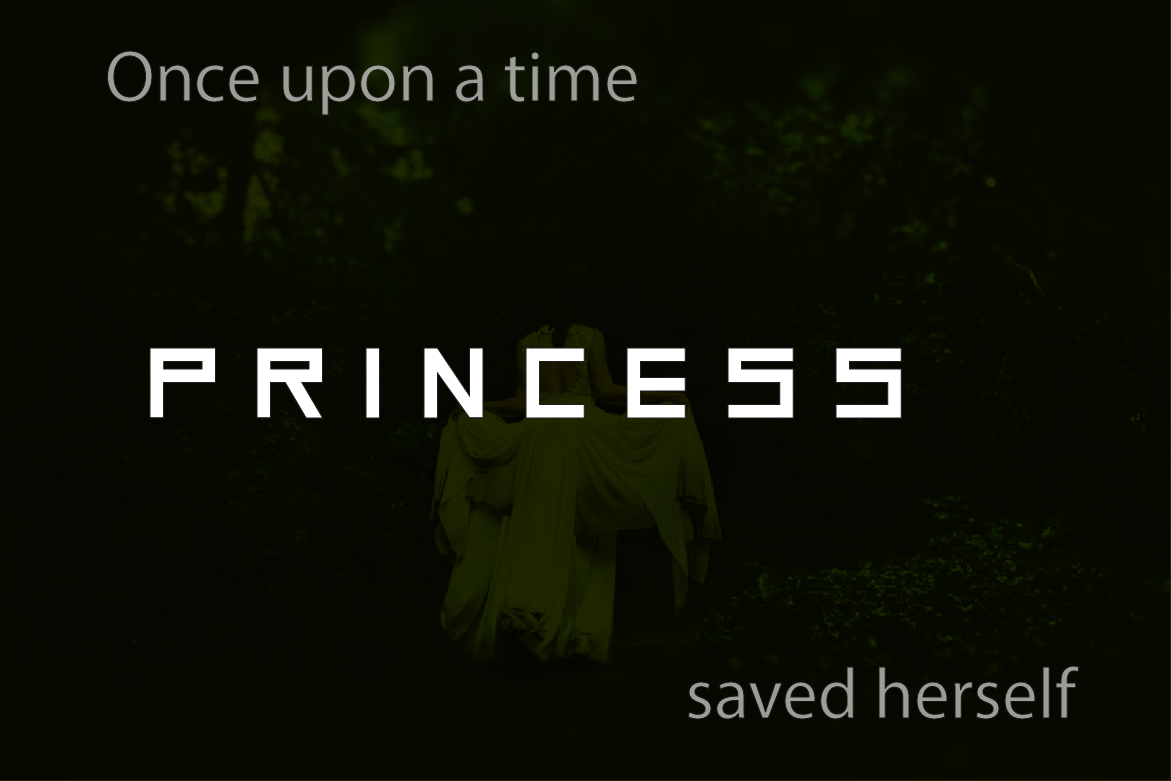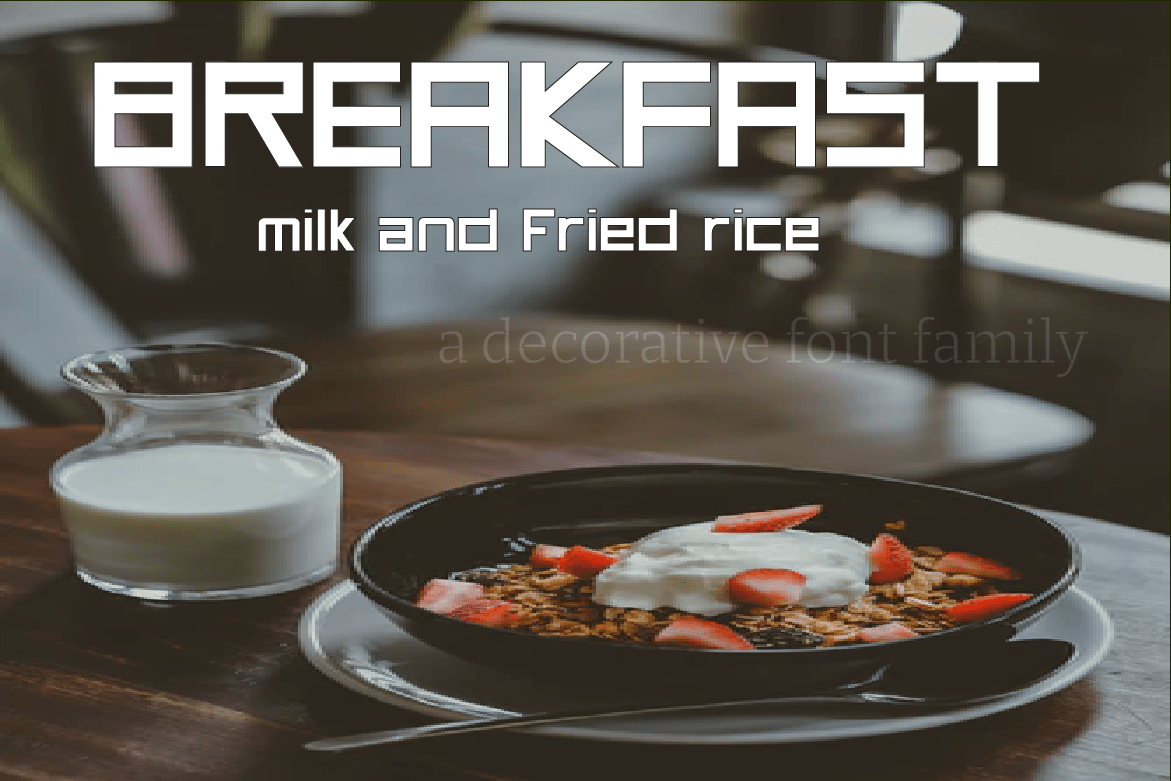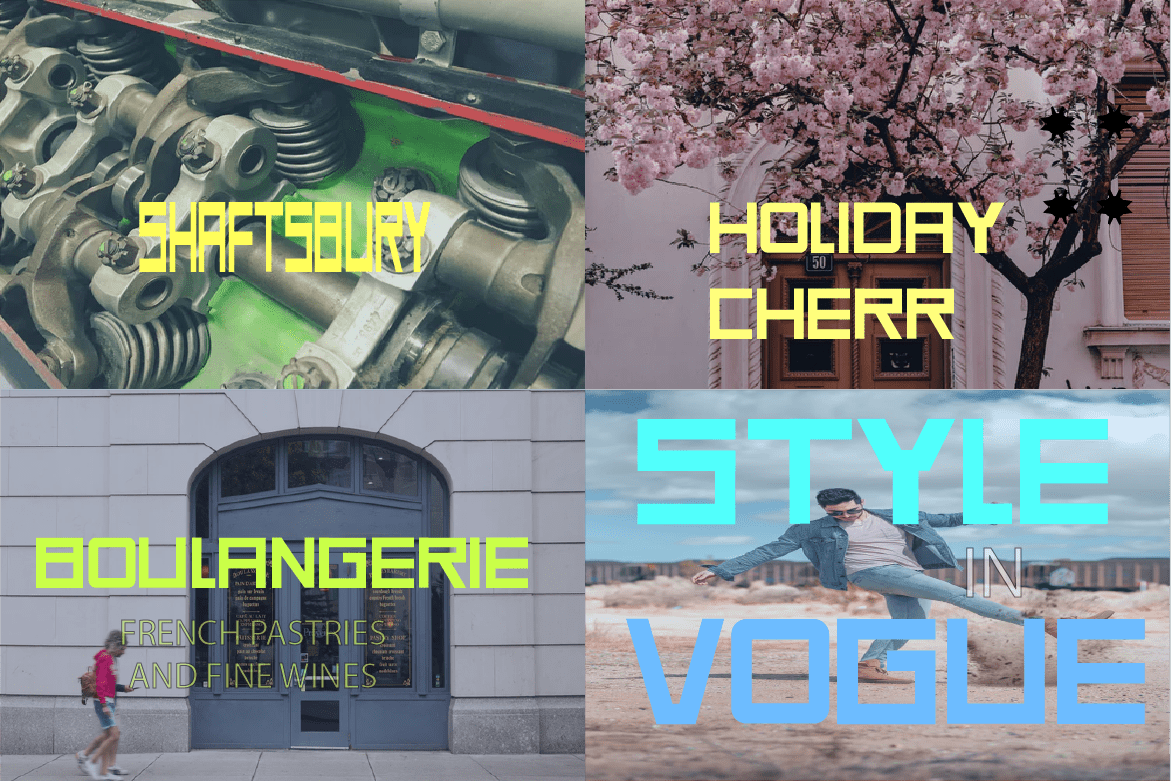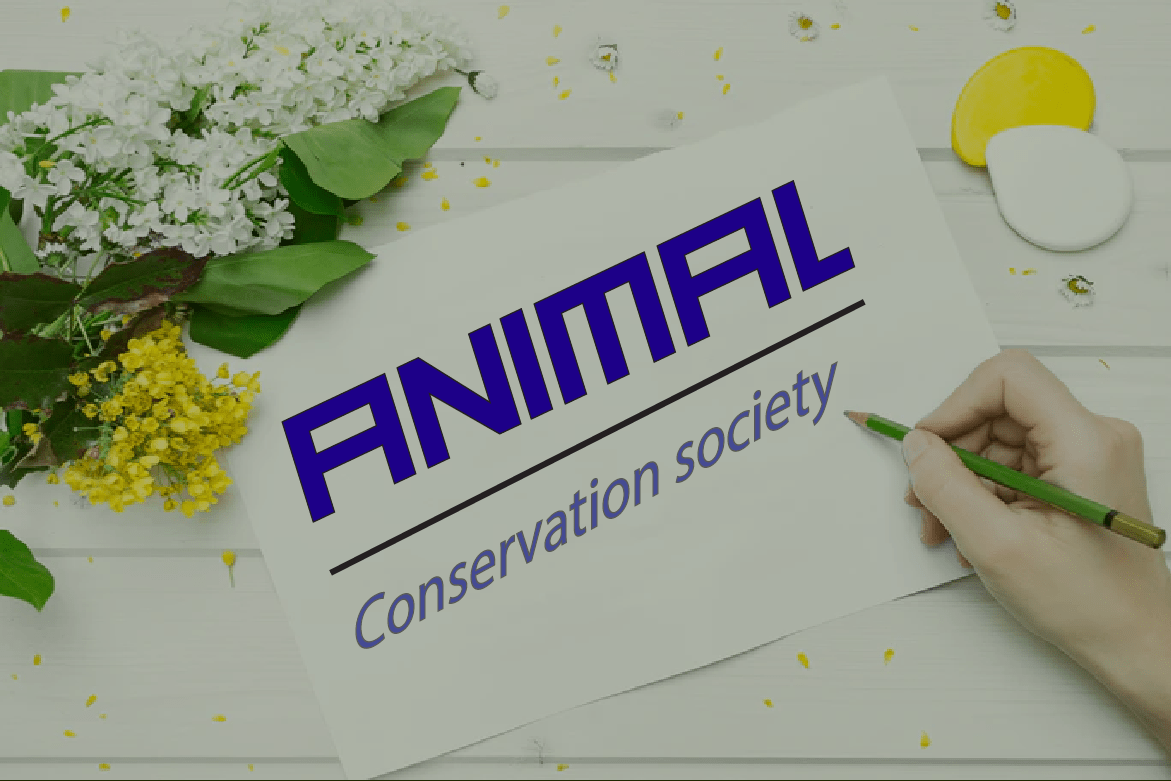
Faineant Font
Faineant Font is a stylish serif font. It works well on various style related designs
which actually adds a complementary touch to the whole and provides extra versatility especially when combined with bright colors. A sleek and stylish invention reminiscent of the word “amazing”.
Faineant Font holds unique promise for a wide variety of ideal fashion-focused designs and brands for cutting-edge labels or smart design studios. Quality and attractiveness: Creative and different. Chiamic and sophisticated.